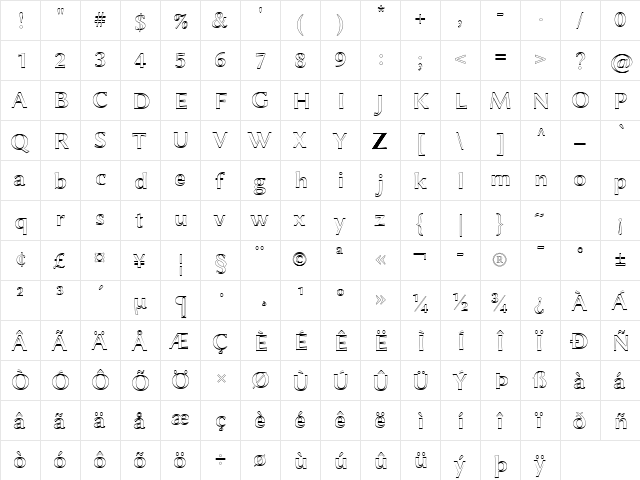
Linux Biolinum Outline Bold
| Foundry | Philipp H. Poll |
| Designer | Philipp H. Poll |
Design Context for Linux Biolinum Outline Typeface
Linux Biolinum Outline is built around its visual character rather than neutral utility — its distinctive forms are designed to make an impression at display sizes. Its bold stroke weight gives it real presence on the page.
Font Pairing: Pair with a clean neutral sans-serif for body copy to let Linux Biolinum Outline's character lead without overwhelming the composition.
Pro Tip: Use Linux Biolinum Outline exclusively at display sizes — it was designed to be seen, not read at length. Let a neutral companion handle body copy.